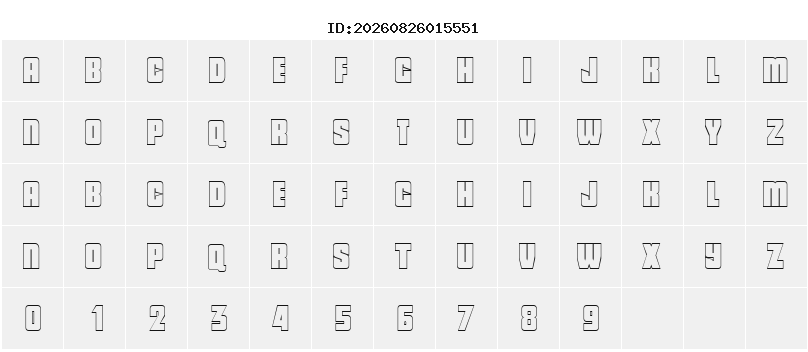
SAUCERAMA2 Preview
About SAUCERAMA2.ttf
SAUCERAMA2.ttf is a modern, elegant sans-serif font designed for ultimate readability and visual harmony. Perfect for branding, headlines, web design, and print materials.